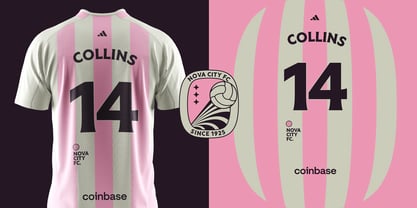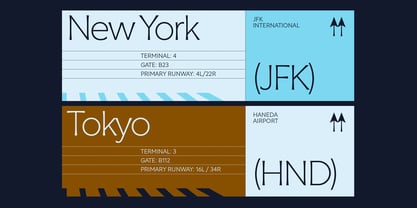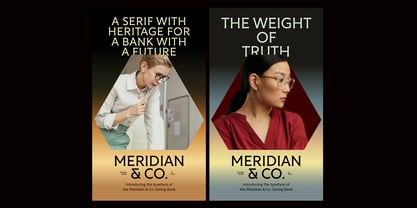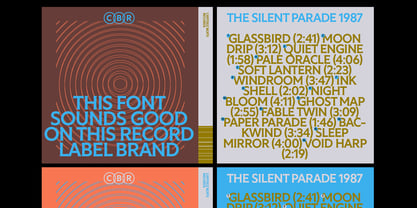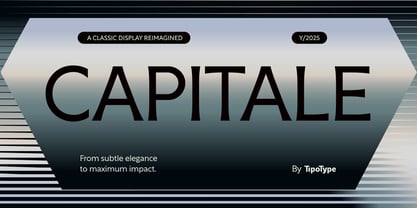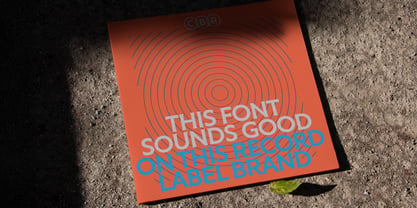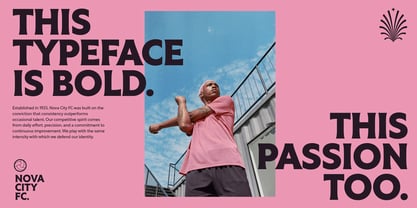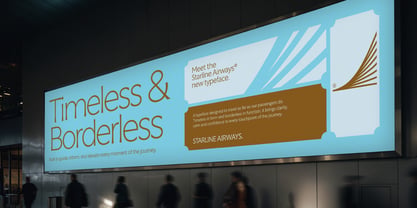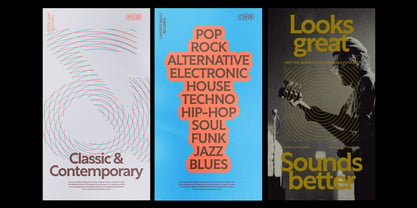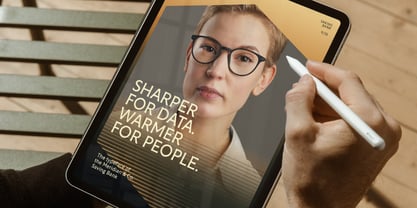
Capitale
by TipoType
The Capitale Font Family was designed by Tipotype Team and published by TipoType. Capitale contains 18 styles and family package options. More about this family
Capitale is a contemporary typeface that explores the historical transition from serif to sans, achieving a conceptual continuity that minimizes formal rupture. It was born as a remembrance of a time when modernity was beginning to emerge from classicism, merging into a single concept the ideas of respect for tradition and confidence in a more rational future. Capitale belongs to the tradition of Roman capital letters carved in stone, preserving their structural balance and a formal restraint that conveys strength through sobriety. In its own way, it also captures the spirit of those early industrial typefaces which, while not fully abandoning classical forms, adopted a more functional and reserved—almost austere—attitude. Built upon a sober yet flexible geometric structure, Capitale incorporates subtle calligraphic inflections that introduce an efficient visual logic without giving up the human gesture. Capitale is a typeface that is conscious of its heritage, yet designed to meet the demands of the present and open to new ways of interpreting text through a contemporary lens.
Designers: Tipotype Team
Foundry: TipoType